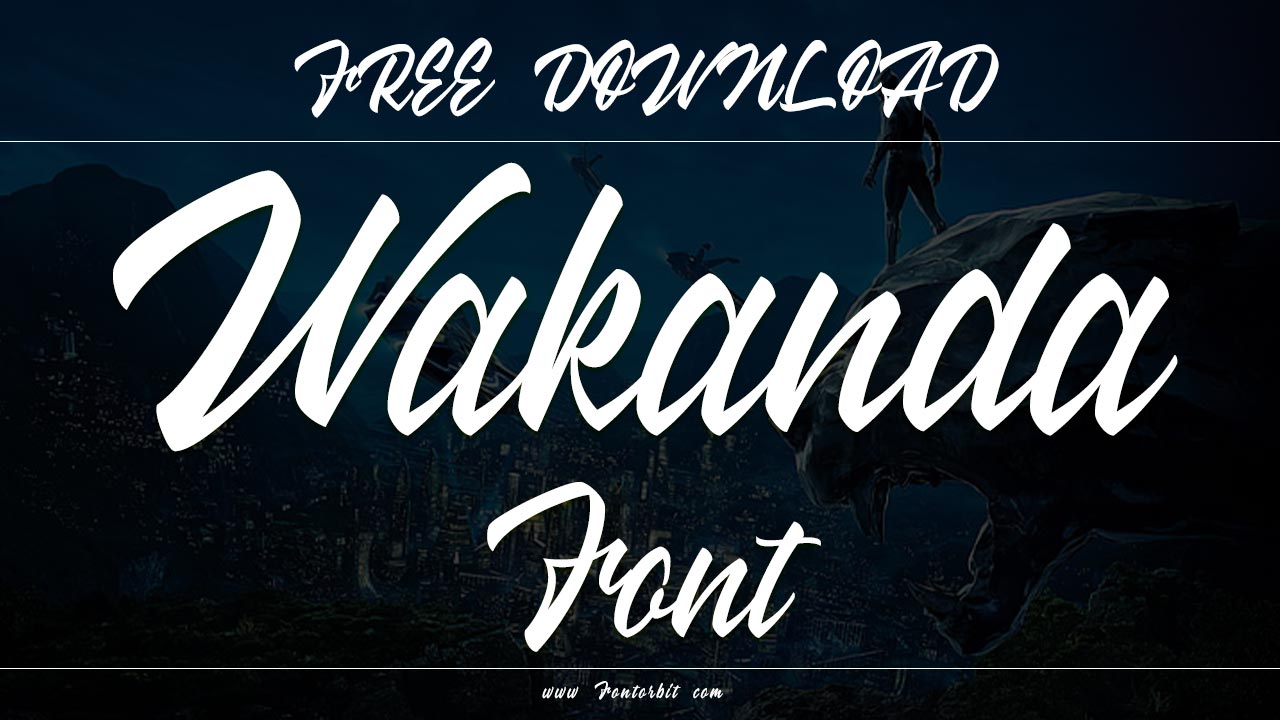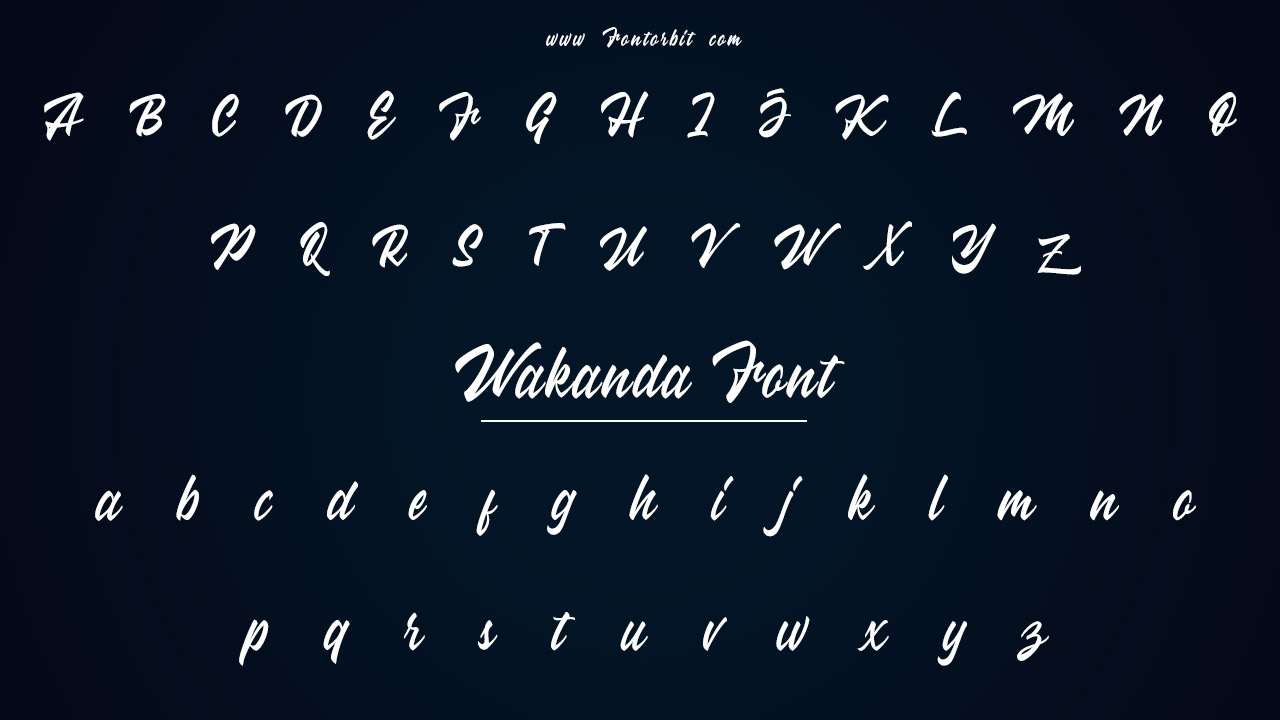
The Wakanda Font, designed by Fabian Korn, is a unique script font that blends culture, tradition, and modern typography. Inspired by Marvel Comics and Nsibidi symbols, it gained recognition through its connection to the Black Panther Font.
This handwritten font features elegant curves, decorative strokes, and bold character designs, making it a great choice for branding, book covers, advertisements, packaging, and special events. Whether you need a font for wedding designs, posters, or digital artwork, Wakanda Font delivers a bold and artistic touch.
Wakanda Font Overview
| Designer | Fabian Korn |
| Style | Script, Handwritten, Decorative |
| Inspiration | Nsibidi Symbols, Black Panther Font |
Wakanda Font Family
The Wakanda Font comes in different styles, each offering a distinct look:
- Wakanda Regular – Standard script style, best for headings.
- Wakanda Bold – Thicker, more dramatic for branding and posters.
- Wakanda Italic – Slanted, stylish script for elegant designs.
- Wakanda Vintage – A retro-styled version perfect for calligraphy font lovers.
The Wakanda Font is a bold and artistic typeface that beautifully combines cultural heritage with modern typography. Whether you’re working on branding, packaging, wedding designs, or posters, this font adds elegance and uniqueness to your latest project. Download and explore its creative potential today!
2. What inspired the design of Wakanda Font?
It is inspired by Nsibidi symbols and the Black Panther Font, blending traditional African writing styles with modern typography.
4. Who is the designer of Wakanda Font?
The font was designed by Fabian Korn, a well-known typeface designer.
6. How does the Wakanda Font compare to the Black Panther Font?
Both fonts share a cultural and artistic theme, but Wakanda Font has handwritten font elements, while Black Panther Font is more structured and futuristic.